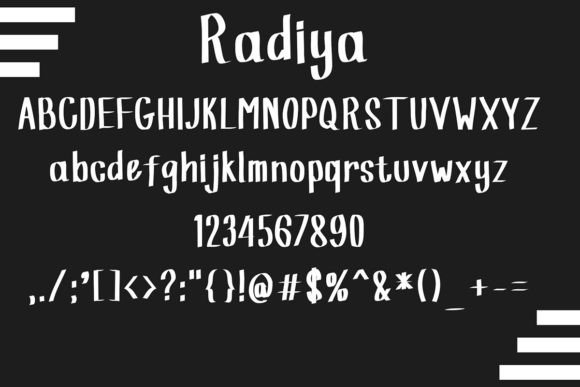
Introduction to Radiya Font
Have you ever sat down with a cup of coffee, a blank sheet of paper, and a calligraphy pen, waiting for the perfect moment of creative flow? That’s exactly what I did when I stumbled upon the beautiful Radiya Font. This handwritten font is more than just a design resource – it’s a reflection of the imperfections and uniqueness of traditional calligraphy.
With its high-quality design and transparent background, Radiya Font is a valuable addition to any designer’s toolkit. Whether you’re working on a creative project or need a free download to spice up your next design, this font is sure to impress. Its unique letterforms and beautiful curves make it a standout design resource that’s perfect for adding a personal touch to your work.
As a designer, you know the importance of having the right tools at your fingertips. That’s why Radiya Font is a must-have for any creative project. Its beauty and uniqueness make it a game-changer for designers looking to elevate their work and stand out from the crowd.
Key Features of Radiya Font
- Designed with a focus on legibility and readability, making it ideal for use in various creative contexts.
Honest Review: Radiya Font
I recently had the chance to work with the Radiya Font in a creative project, and I must say it was a delightful experience. This high-quality font is a fantastic addition to any design resource.
What works well is its elegant and modern design, perfect for a wide range of creative projects. It’s free to download, making it an excellent choice for designers on a budget. I particularly appreciated the transparent background, which allowed me to easily integrate it into my design.
- ✨ Elegant and modern design
- ✨ High-quality design resource
While I was overall very impressed with the Radiya Font, there are a few limitations to keep in mind. For example, it may not be suitable for projects requiring bold or dramatic font styles. Additionally, some users may find the font’s design a bit too minimalist for their taste.
Overall, I’m thoroughly impressed with the Radiya Font. It’s a high-quality, versatile design resource that’s perfect for a wide range of creative projects. I would highly recommend it to designers looking for a modern and elegant font.
Common Use Cases for Radiya Font
Radiya Font is ideal for use in a variety of creative projects, including logo design, branding, and digital art. Its high-quality design and transparent background make it a versatile and useful design resource.